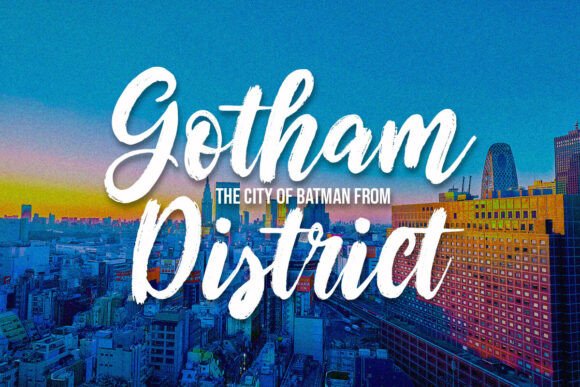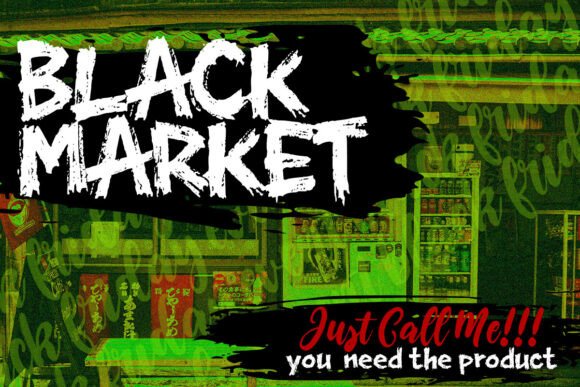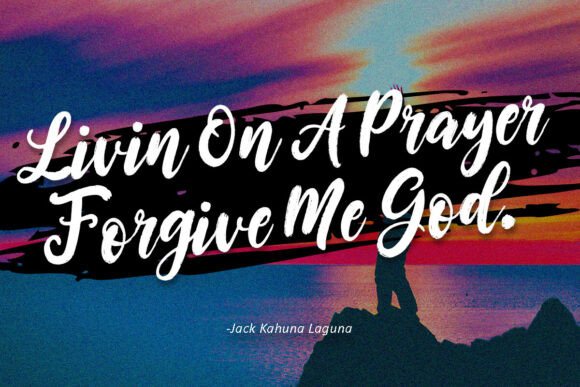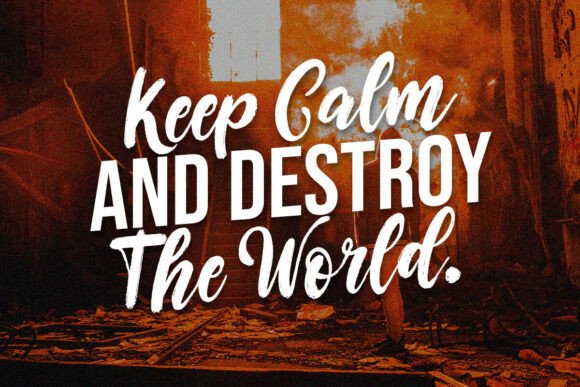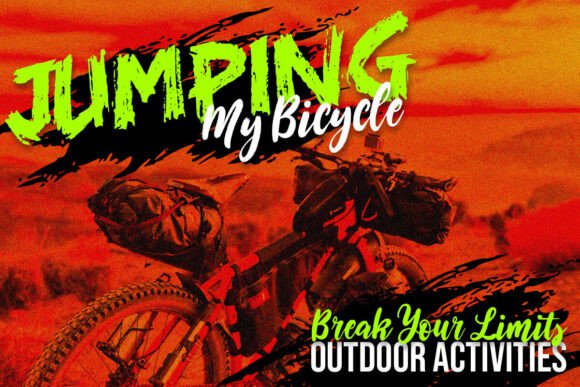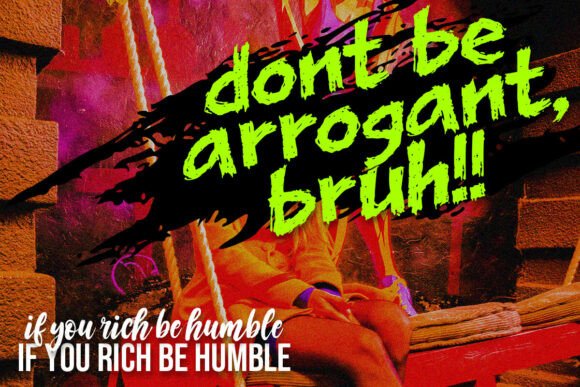
Unleash Your Creative Edge with Badger Criminal Font
Are you tired of using the same old fonts in your designs? Do you want to add a touch of urban grit and attitude to your projects? Look no further than Badger Criminal, a raw and gritty font duo from Struggle Studio. This versatile pack is designed to bring an authentic street vibe to your artwork, making it perfect for designers and crafters who want to stand out from the crowd.
What’s in the Pack?
The Badger Criminal font pack includes three essential files that will take your designs to the next level. The first file is a bold Regular brush font, perfect for creating high-impact headlines that demand attention. The second file is a rebel-style Script font, designed to give your text a natural, handwritten flow that’s perfect for adding a touch of personality to your designs. The third file is a dedicated Swash brush set, filled with custom strokes and splatters that will give your artwork that final hand-painted touch.
Raw and Gritty Texture
One of the standout features of Badger Criminal is its perfectly textured and raw aesthetic. The fonts are designed to look like they were pulled straight from the streets, with a gritty, urban feel that’s perfect for streetwear branding, edgy posters, and masculine apparel designs. The texture is rough and unapologetic, adding a level of depth and character to your designs that’s hard to replicate with clean, digital fonts.
Perfect for Streetwear and Edgy Designs
Badger Criminal is the ultimate choice for designers who want to create bold, eye-catching artwork that refuses to blend in. The font duo is perfect for streetwear branding, edgy posters, and masculine apparel designs, and can be used to create everything from bold logos and slogans to striking album art and packaging. Whether you’re designing for a fashion brand, a music label, or simply want to add a touch of urban grit to your artwork, Badger Criminal has got you covered.
Versatile and Easy to Use
One of the best things about Badger Criminal is its versatility. The font duo is incredibly easy to use, with a simple and intuitive design that makes it easy to get started. The fonts are compatible with a range of design software, including Adobe Photoshop and Illustrator, making it easy to incorporate them into your workflow. Whether you’re a seasoned designer or just starting out, Badger Criminal is a great choice for anyone looking to add a touch of urban grit to their designs.
Authentic Urban Street Vibe
Badger Criminal is more than just a font duo – it’s a way to add an authentic urban street vibe to your designs. The fonts are designed to capture the raw energy and attitude of the city streets, with a bold and unapologetic aesthetic that’s perfect for designers who want to create artwork that stands out. Whether you’re designing for a streetwear brand or simply want to add a touch of urban grit to your artwork, Badger Criminal is the perfect choice.
Get Creative with Badger Criminal
So why settle for boring, generic fonts when you can unleash your creative edge with Badger Criminal? With its raw and gritty texture, versatile design, and authentic urban street vibe, this font duo is the perfect choice for designers and crafters who want to take their artwork to the next level. So why wait? Download Badger Criminal today and start creating bold, eye-catching designs that refuse to blend in.
- Raw and gritty font duo with a bold Regular brush font, rebel-style Script font, and dedicated Swash brush set
- Perfectly textured and dripping with attitude
- Perfect for streetwear branding, edgy posters, and masculine apparel designs
- Authentic urban street vibe that’s perfect for designers who want to create bold, eye-catching artwork